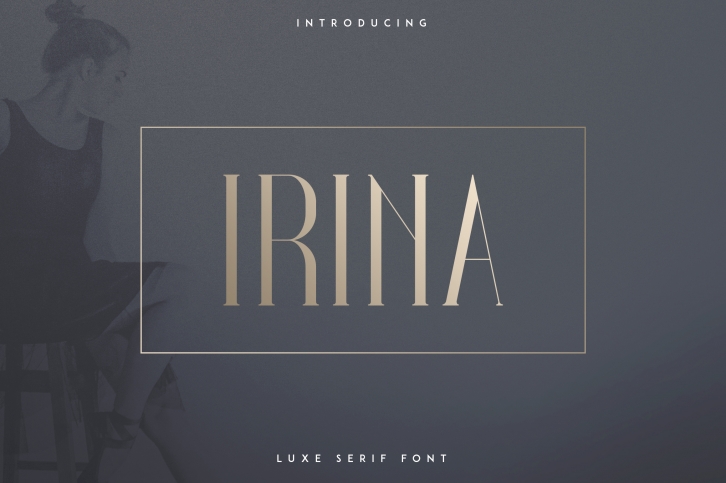
Irina Luxe Serif is a beautiful font that was designed by VPcreativeshop. It's a great choice for designers and creatives who need such a font. It was released on May 24, 2018 and the file size is 13.48 MB. Irina Luxe Serif may give a more youthful, expressive and casual look to your project. It is a very beautiful, refined, elegant, and high-quality font.